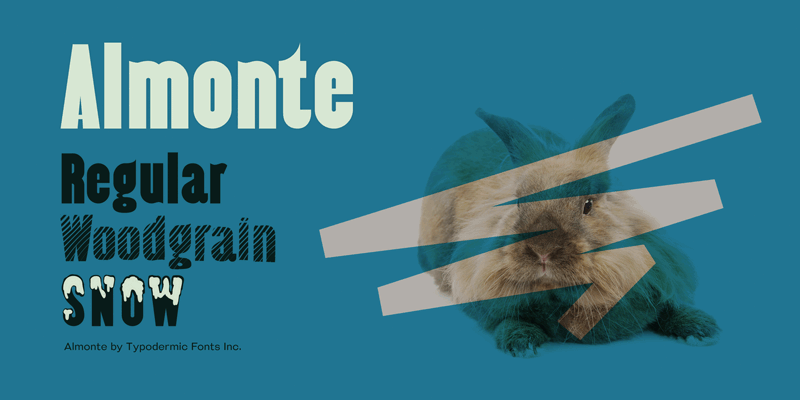
Preview and download Almonte Woodgrain Font. Created by Typodermic Fonts in Fancy Distorted styles with 100% Free license.
Like a transdimensional goat, Almonte never existed in the real barnyard world. This wooden farm type has never even seen a real chunk of wood which makes it ideally suited for steampunk or other gonzo-historical themes. Almonte is available regular, wood-grain and snow styles. These fonts include a license that allows free commercial use: sometimes referred to as a desktop license. This allows you to install the fonts on a computer and use them to create posters, web graphics, game graphics, t-shirts, videos, signs, logos and more. Read the license agreement for details. If you'd like to embed these fonts in an app, ebook, on the web or anything that's not covered by the desktop license agreement, visit the link below. You'll find distributors who offer different types of licenses or you can contact me for help. http://typodermicfonts.com/almonte/ |